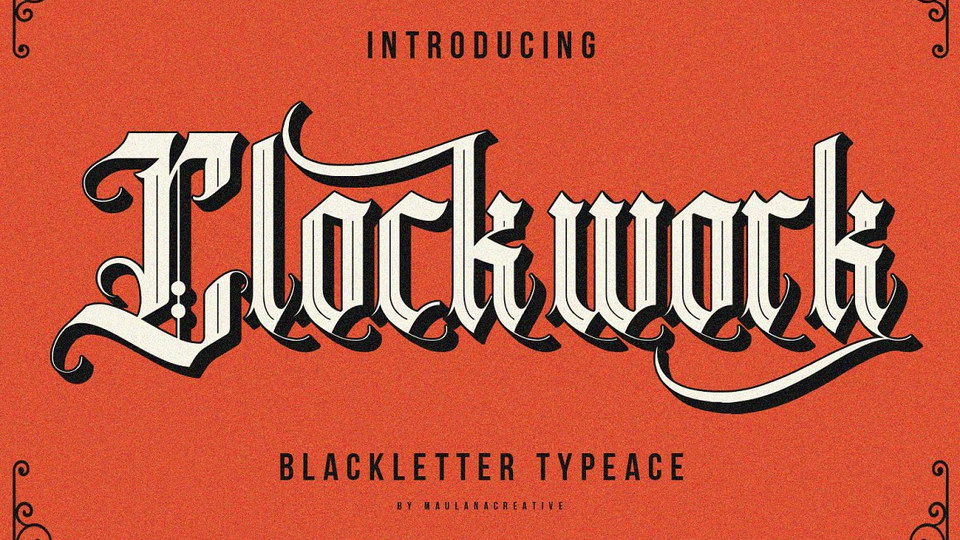
Download Clockwork font, a handmade Victorian blackletter typeface, which is combining modern and classic typography with some awesome alternates.
Designer: Maulana Creative